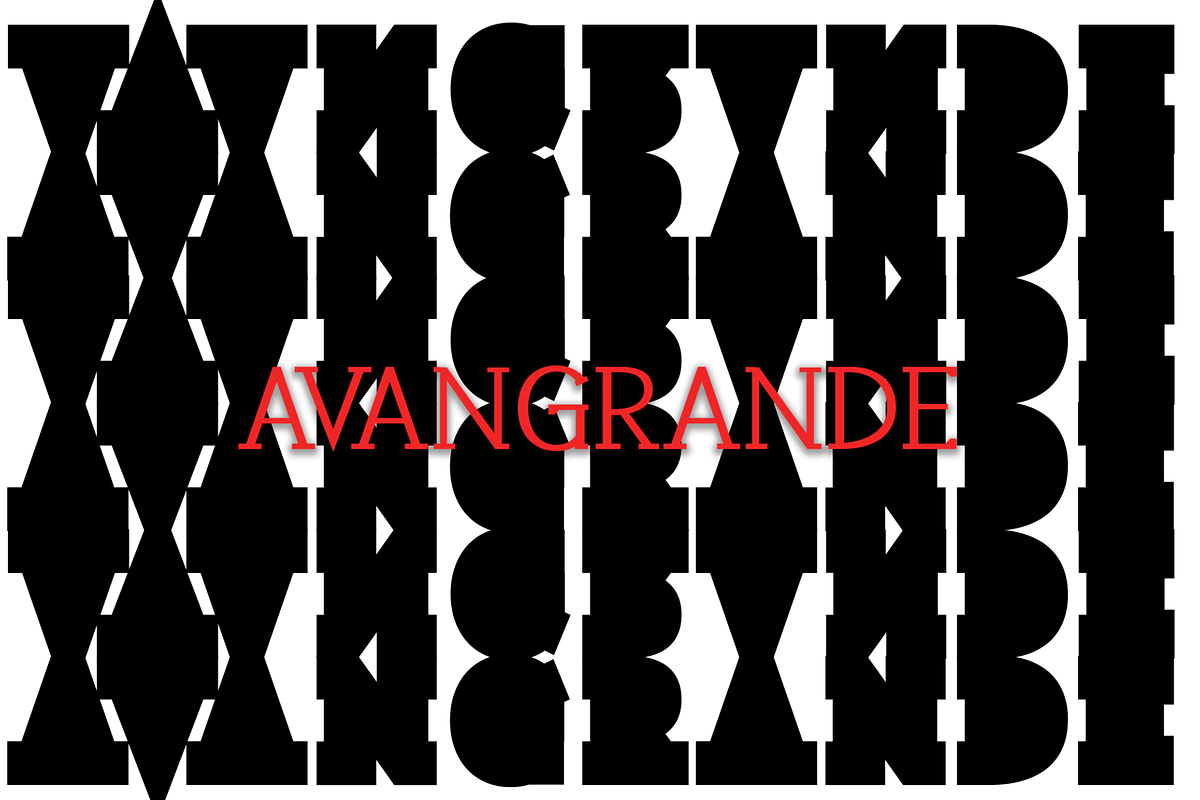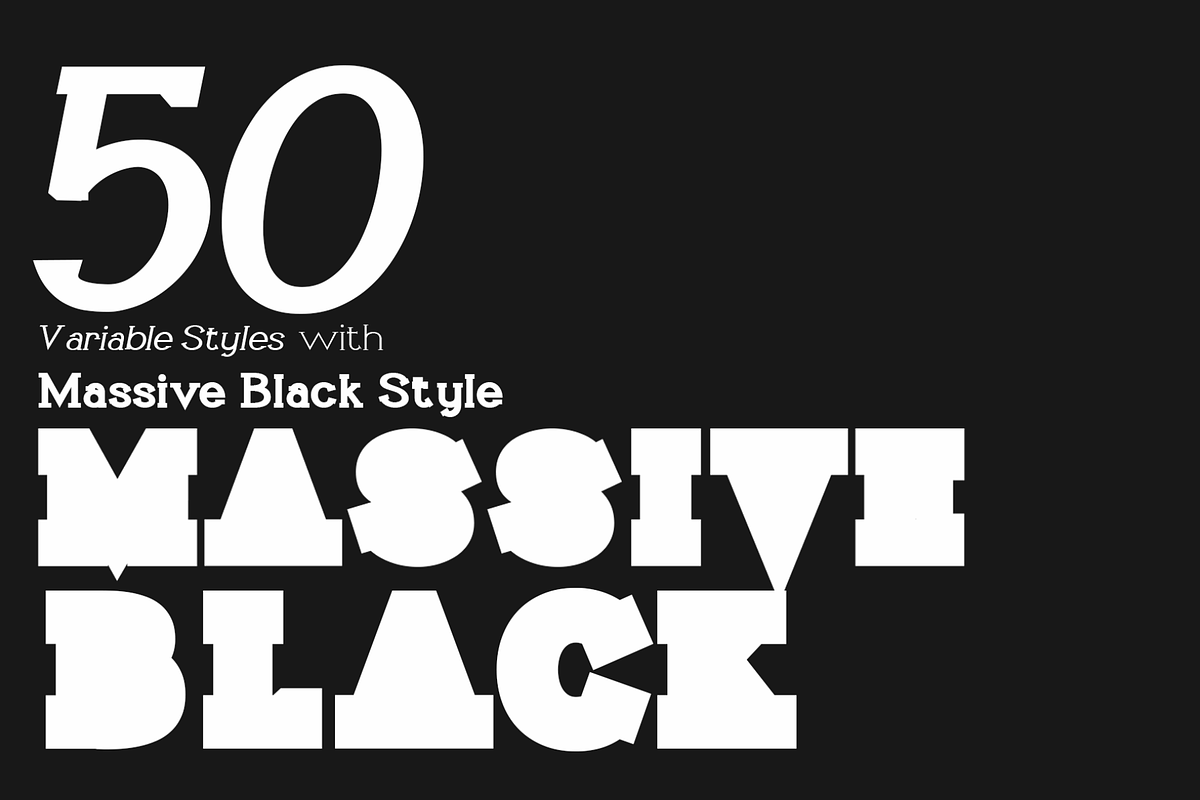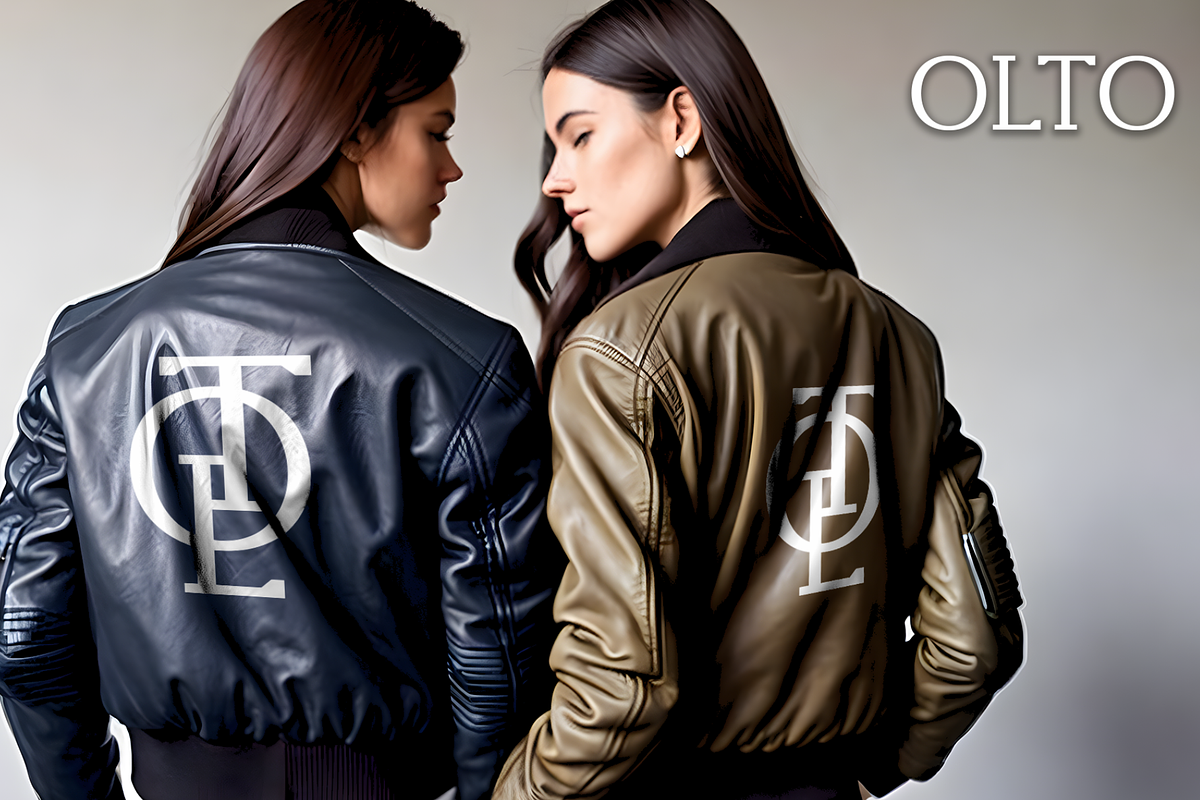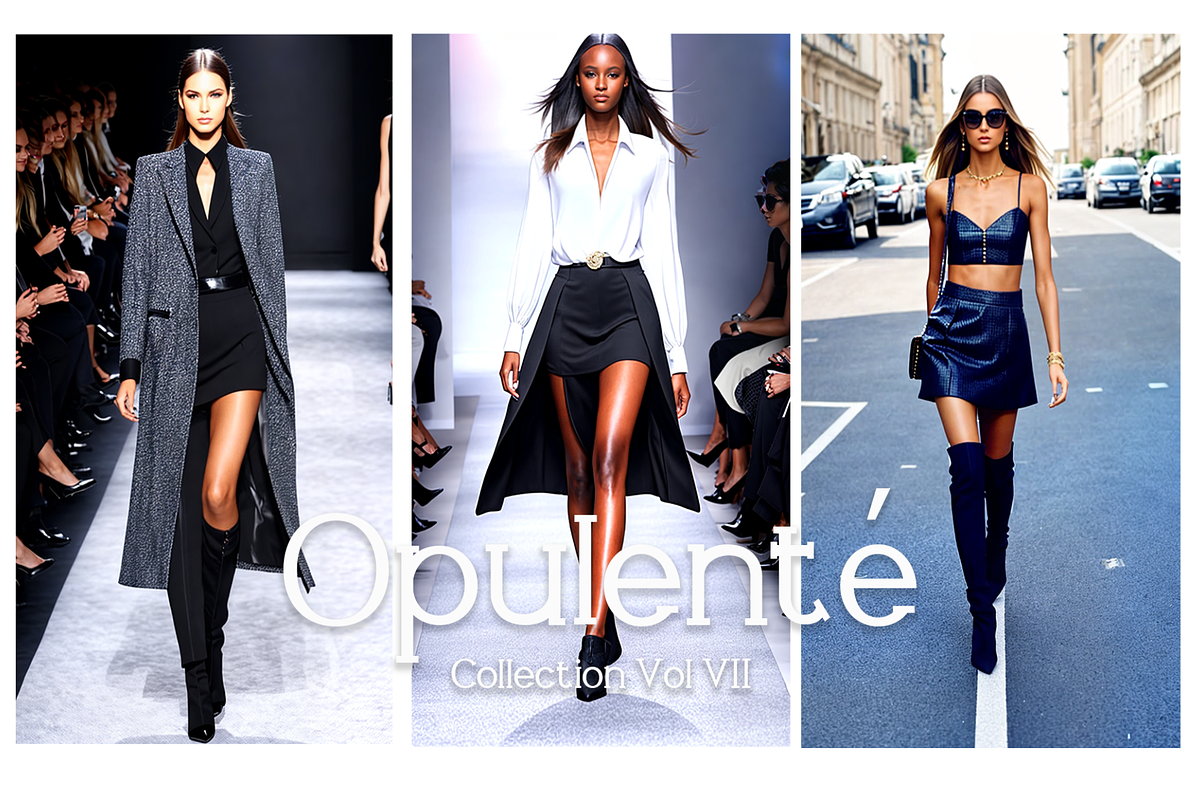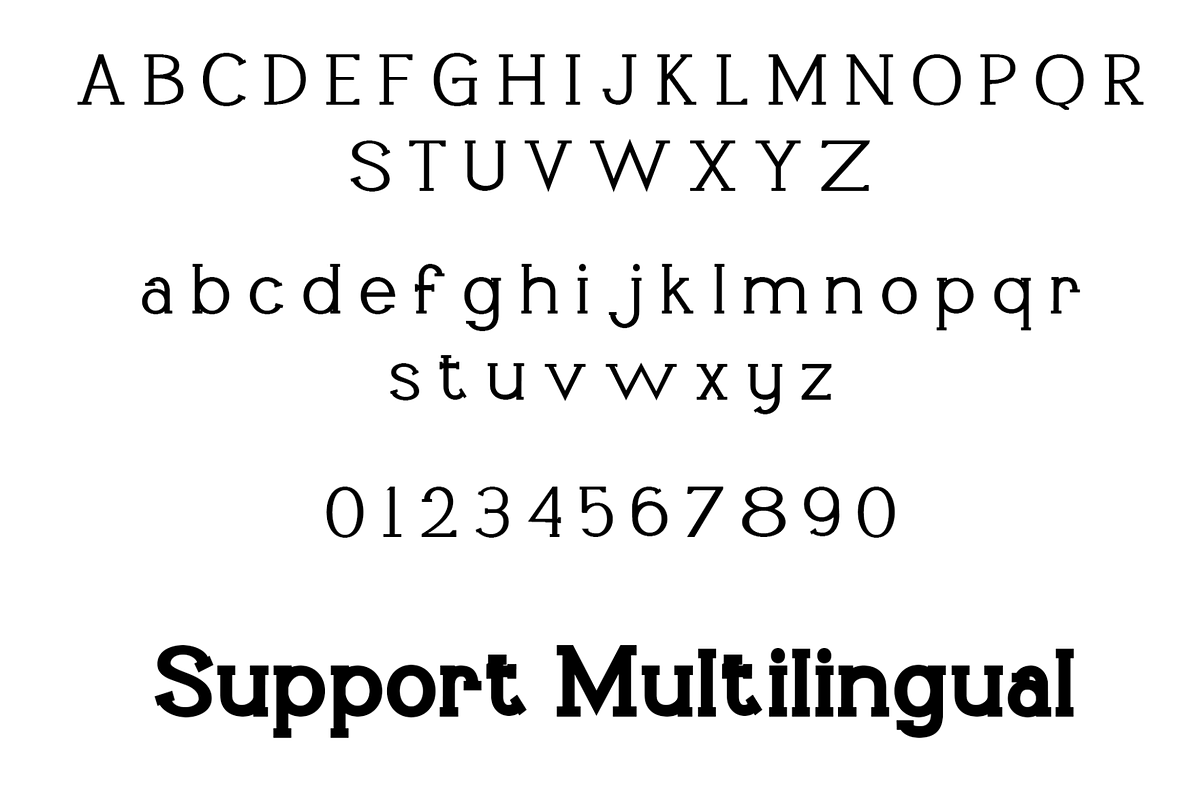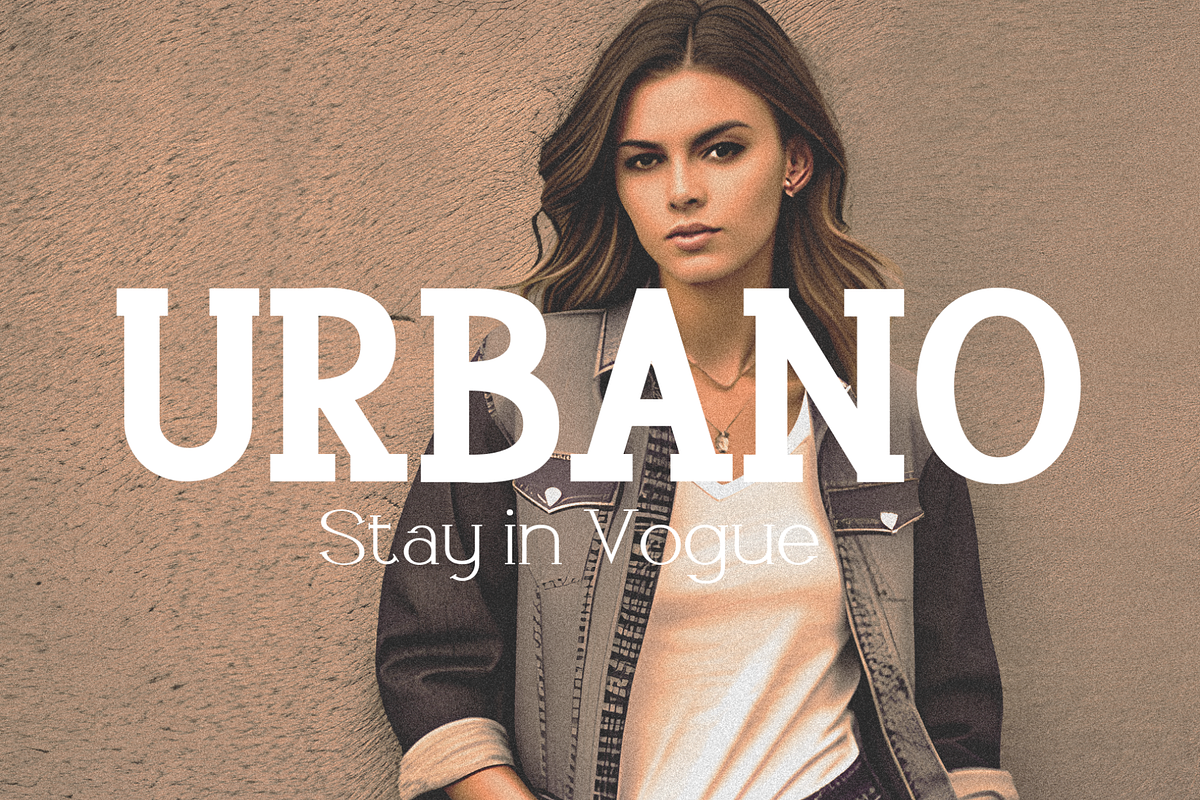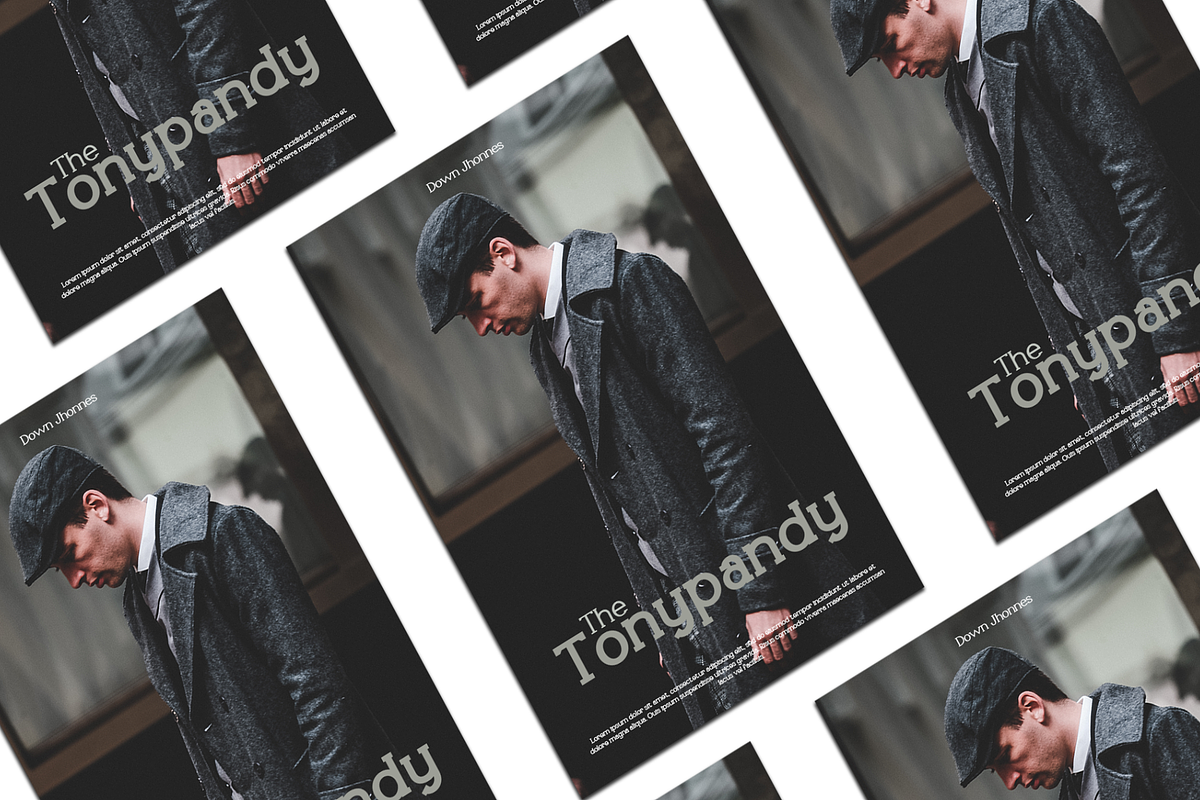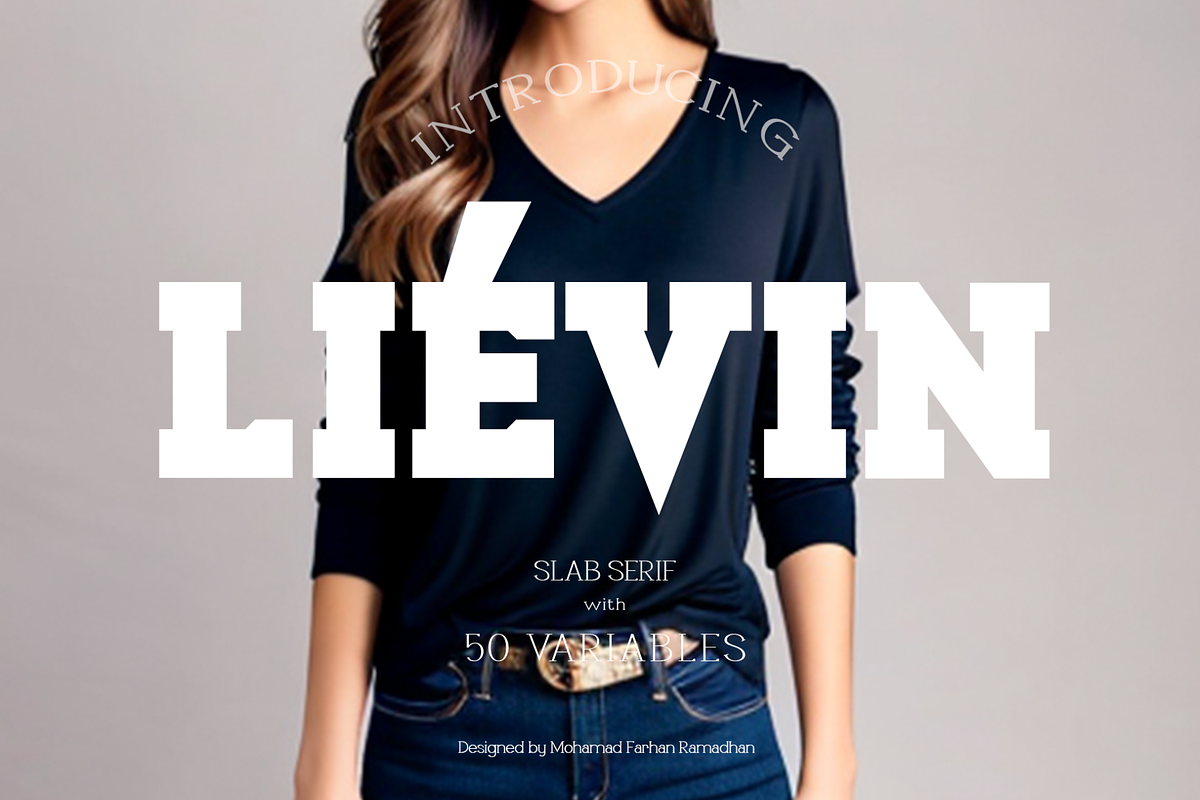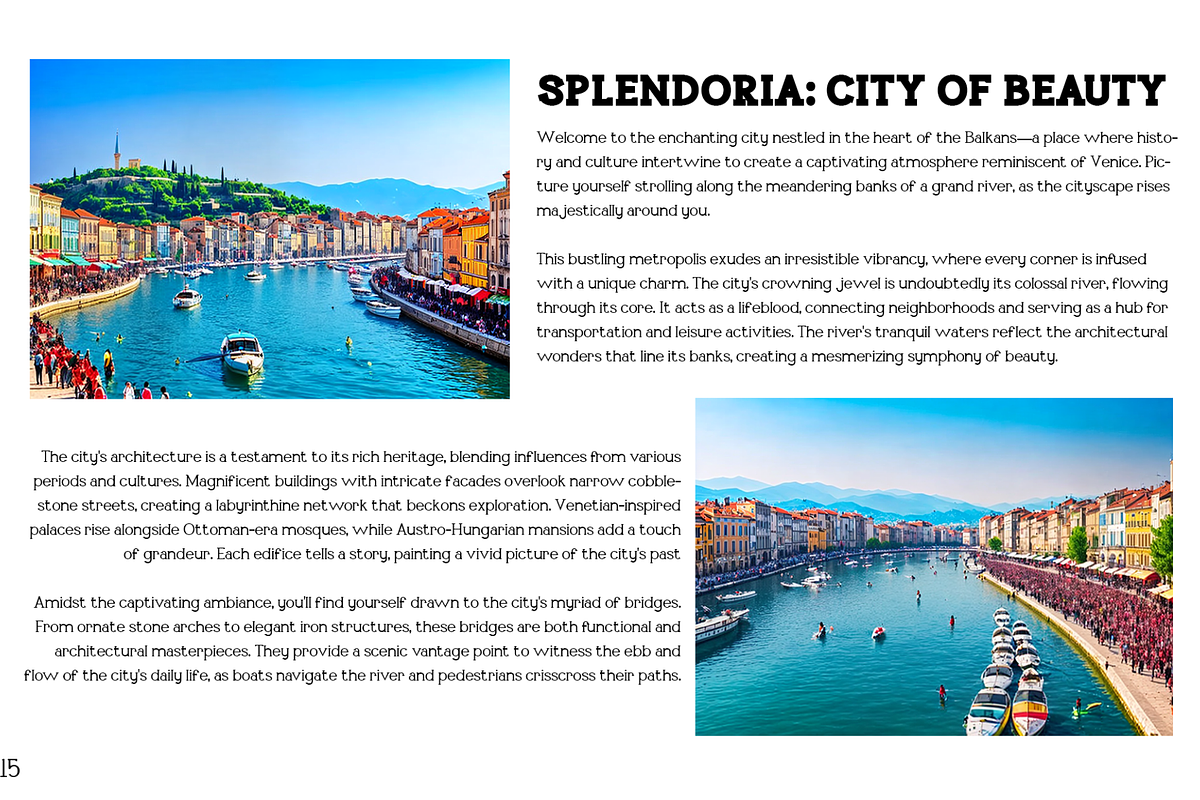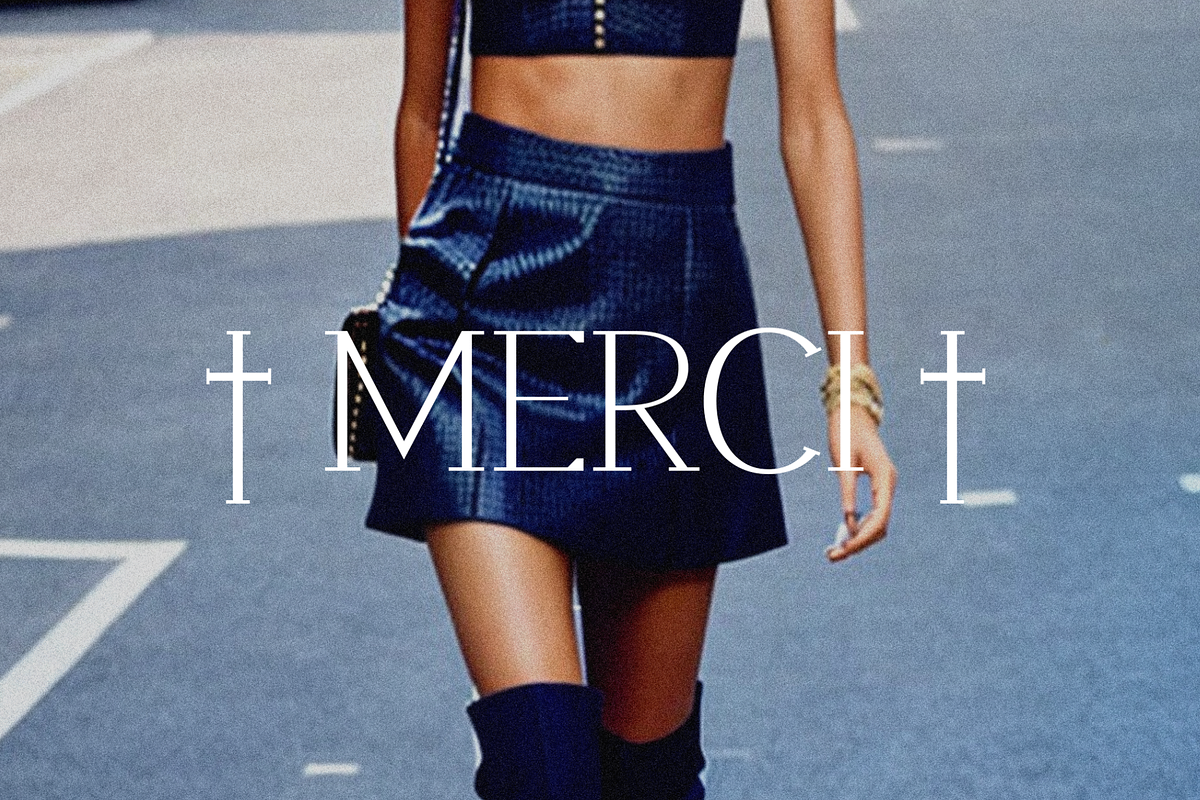
Liévin
Liévin is an exceptional slab serif font renowned for its simple, clean lines and elegant charm. With its versatile nature, it effortlessly adapts to various design needs. Offering a staggering range of 50 variable styles, from thin to massive black, it caters to diverse typographic demands. Perfect for posters, marketing materials, logotypes, headlines, books, magazines, and more, Liévin is a go-to choice for creating captivating and impactful designs.